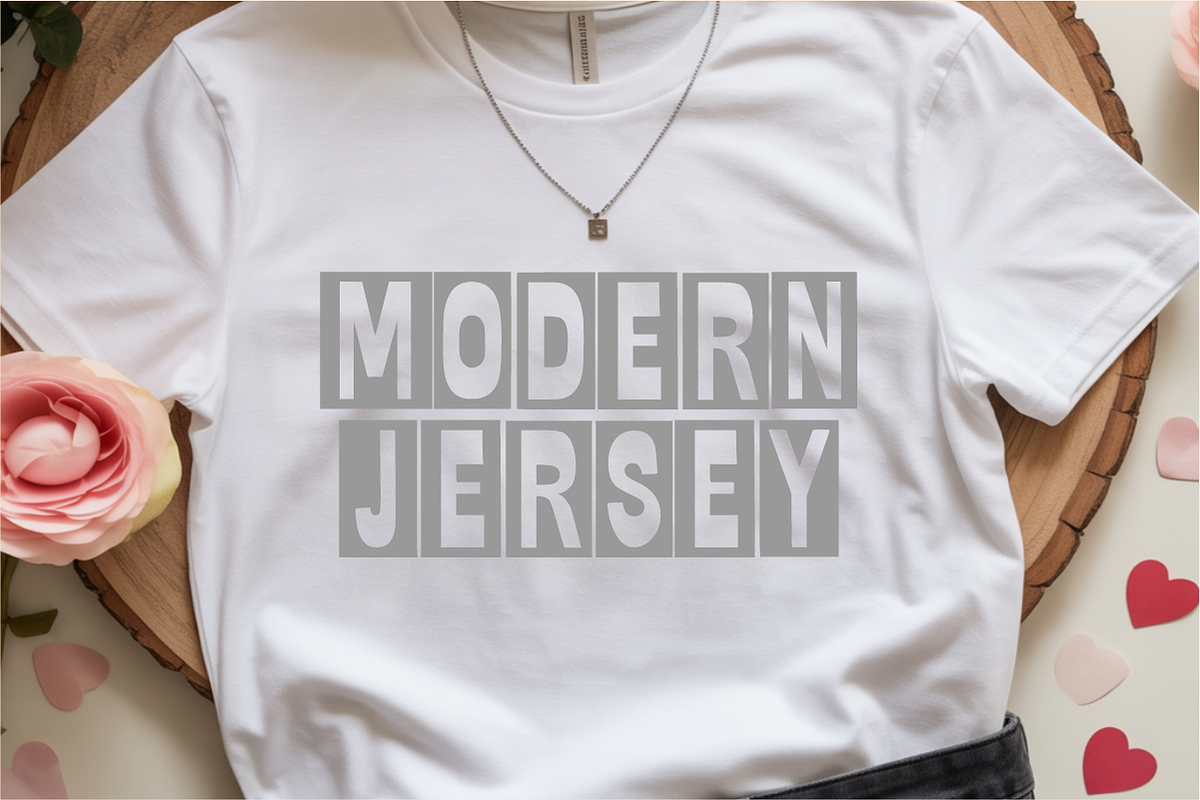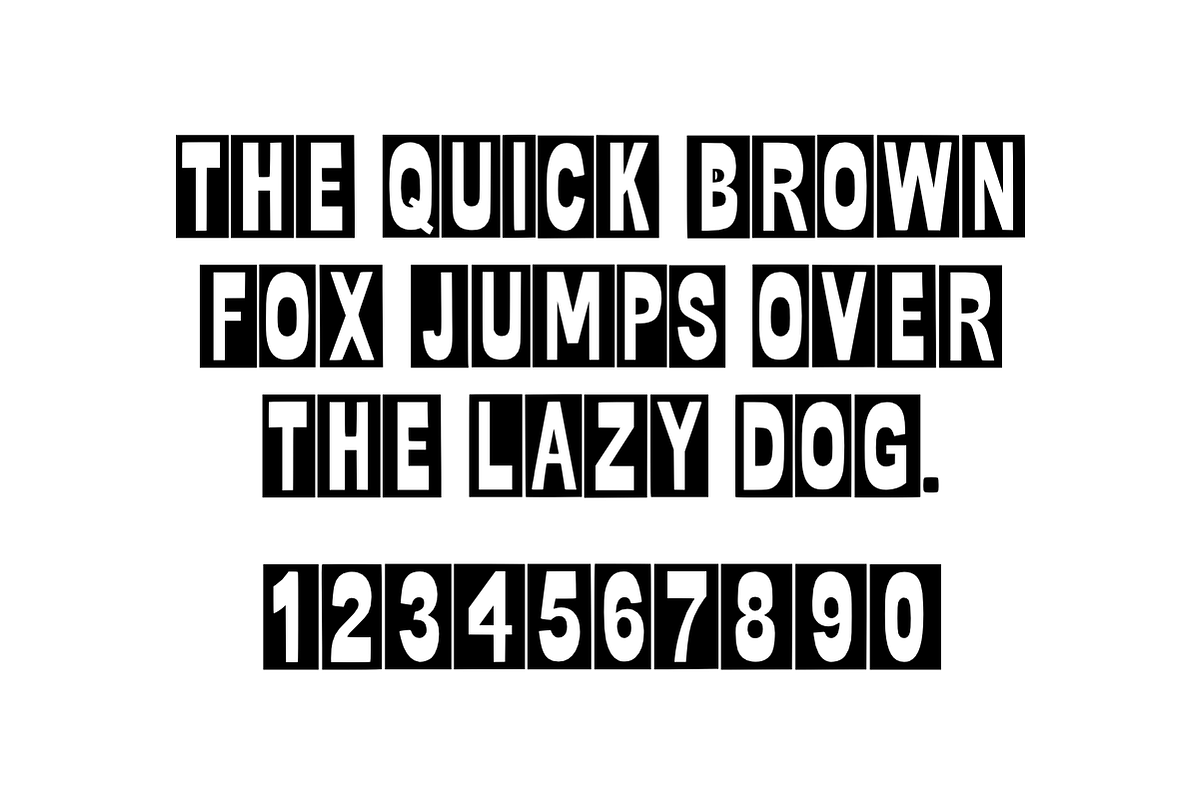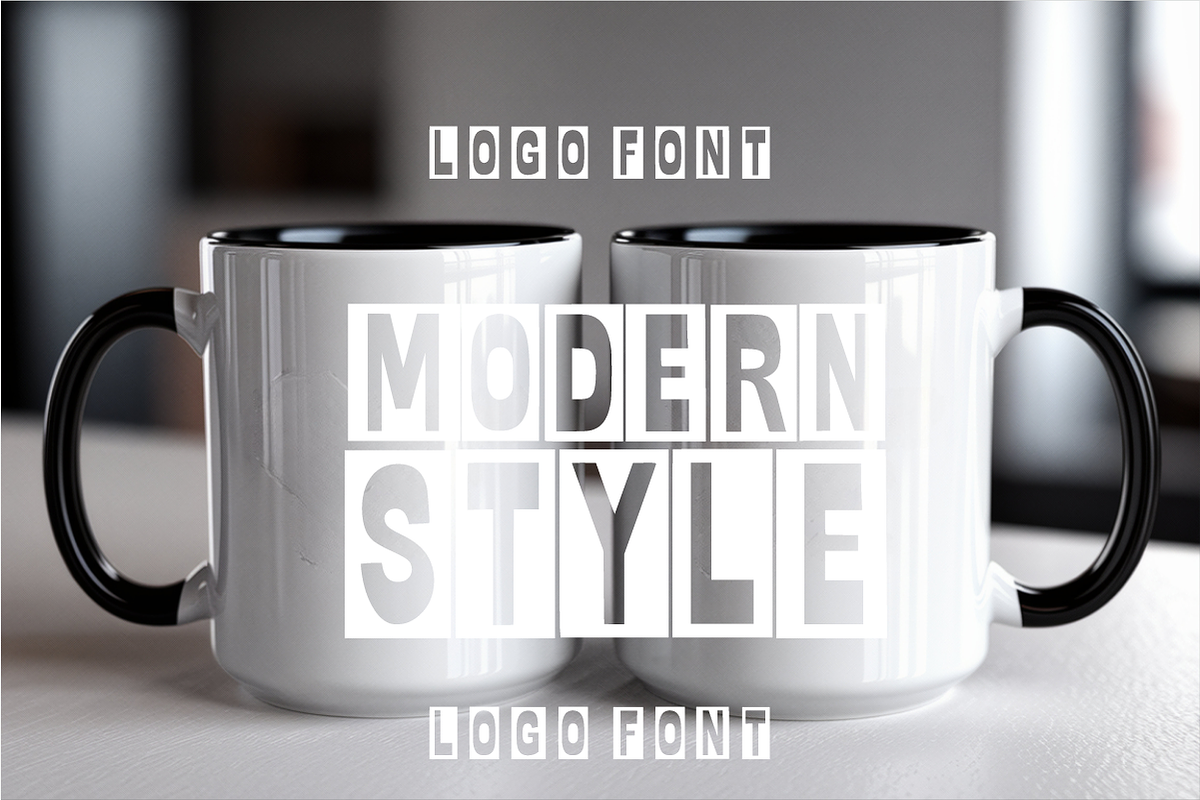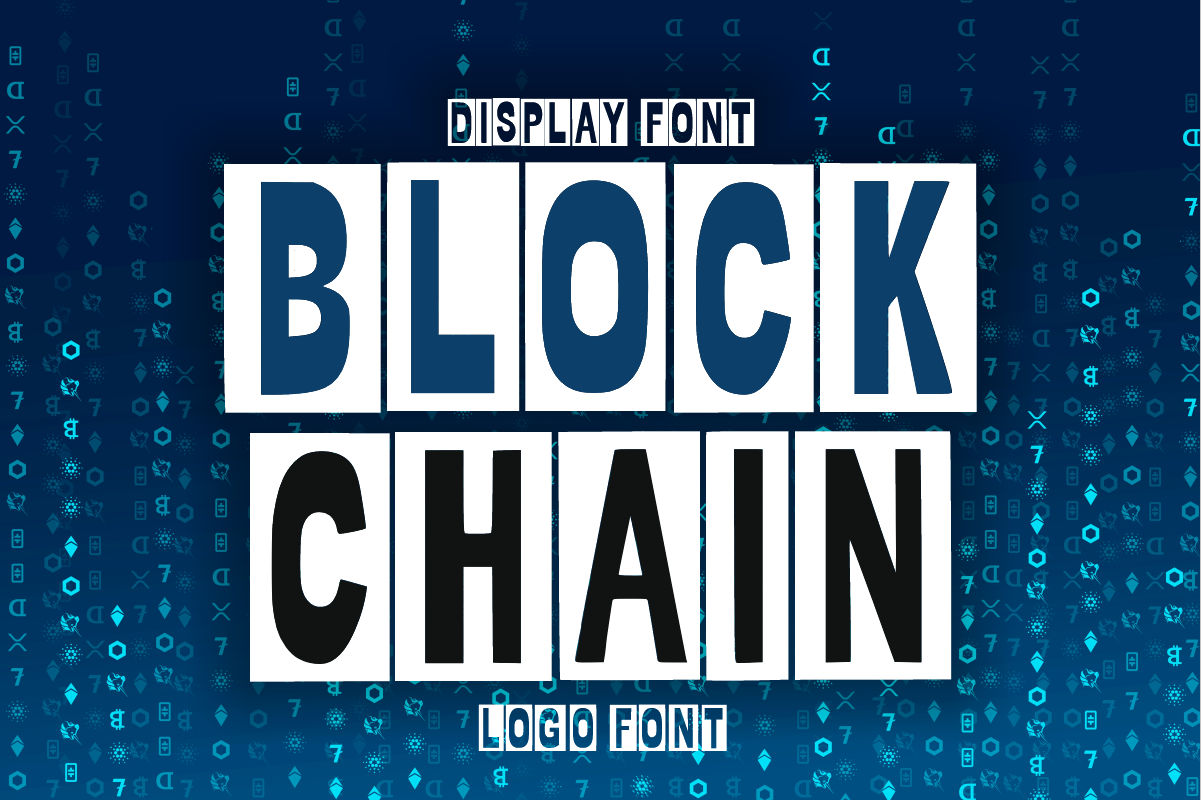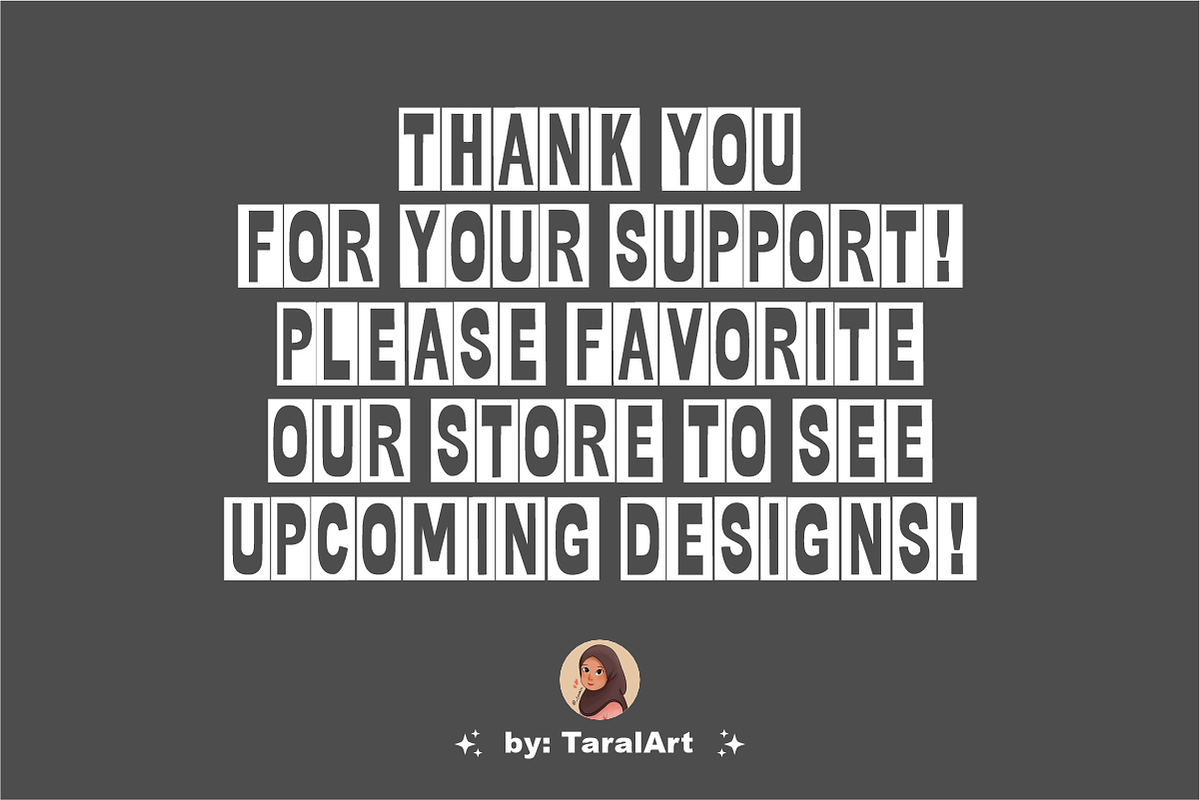
Blockchain - Modern Block Font
Blockchain is a bold, high-impact display font featuring a unique modular cutout style where each letter is framed within solid geometric blocks. Designed to bring a powerful tech-forward and futuristic energy, this sharp font is perfect for digital branding, crypto-themed layouts, and modern streetwear logos. Every character features clean vector lines, ensuring crisp high-resolution prints and effortless cutting for vinyl decals.
Ideal For:
Technology branding, crypto logos, and fintech website headers
Cyberpunk designs, action gaming graphics, and streaming overlays
Modern streetwear clothing lines, urban merchandise, and custom stickers
Bold poster layouts, futuristic movie titles, and book covers
High-contrast packaging, industrial labels, and sharp corporate banners
Cricut, Silhouette, and digital vinyl crafting projects